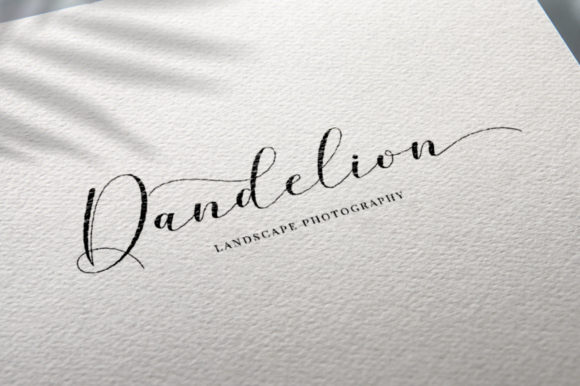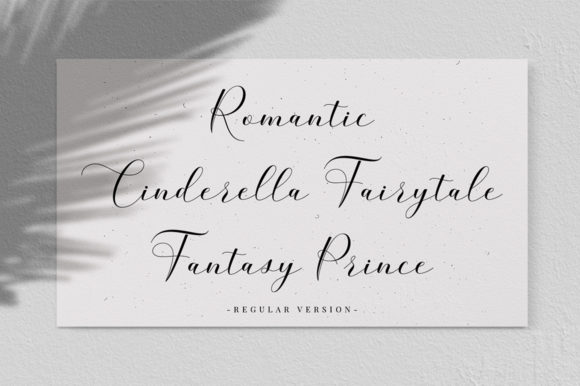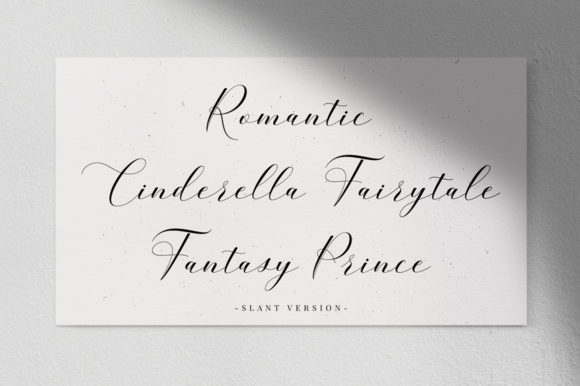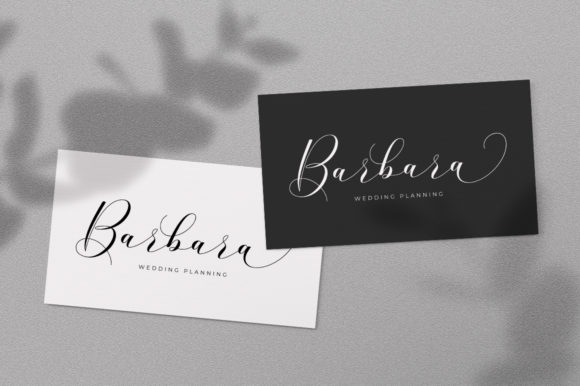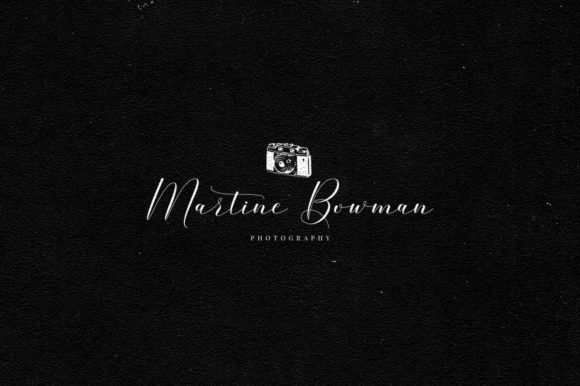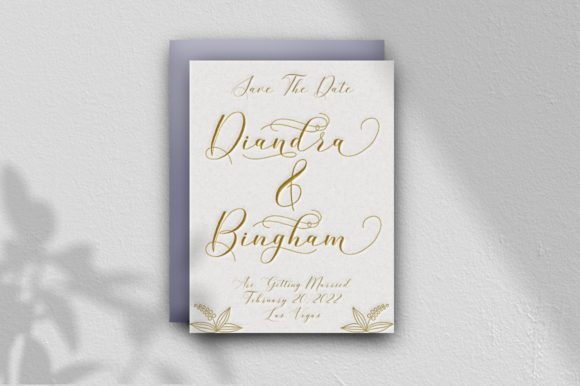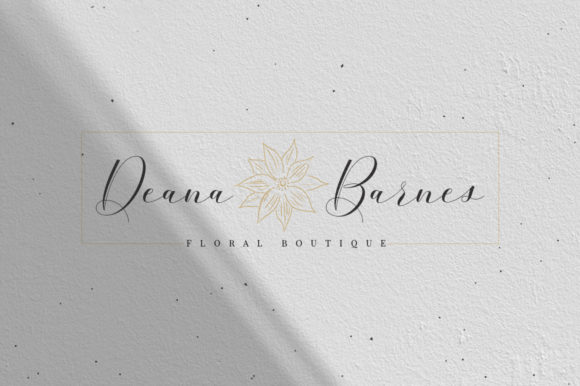
HomeScript FontsBelgiana Font Script Fonts Belgiana Font FacebookXPinterestWhatsApp Belgiana Font Poster 2 Belgiana Font Poster 3 Belgiana Font Poster 4 Belgiana Font Poster 5 Belgiana Font Poster 6 Belgiana Font Poster 7 Belgiana Font Poster 8 About Belgiana Font Belgiana is a truly stunning script with amazing swashes. Get inspired by its modern elegance! DOWNLOAD ON CREATIVE FABRICAThis font is sold and delivered by Creative Fabrica. Font Canyon may earn a commission if you buy through this link. People also explored Chokellate Font Aldora Font Melati Font Pinky Heart Font Los Angeles Font Workspace Font Roscheefs Script Font Osman Font Virose Font 308 0 TagsBelgiana Font Previous articleGreatfella FontNext articleGerald Battom Font LEAVE A REPLY Cancel reply Comment: Please enter your comment! Name:* Please enter your name here Email:* You have entered an incorrect email address! Please enter your email address here Website: Save my name, email, and website in this browser for the next time I comment. Personal Use Free Cokobi Personal Use Free Read more about this font Morning Miow Personal Use Free Read more about this font BD Spinner Personal Use Free Read more about this font Euphorigenic Personal Use Free Read more about this font BLOG Transform Your Website: Elevate Your Typography with 7 Best Web Font Generators Are you ready to transform your website's typography from ordinary to extraordinary? Great! Today, we're diving into the world of web font generators, which... Free vs Paid Fonts: Why Investing in Premium Fonts Is Worth It Free Fonts Risk: Why Free Fonts Can Be Dangerous for Designers Best Fonts for YouTube Videos: Make Your Thumbnails Stand Out